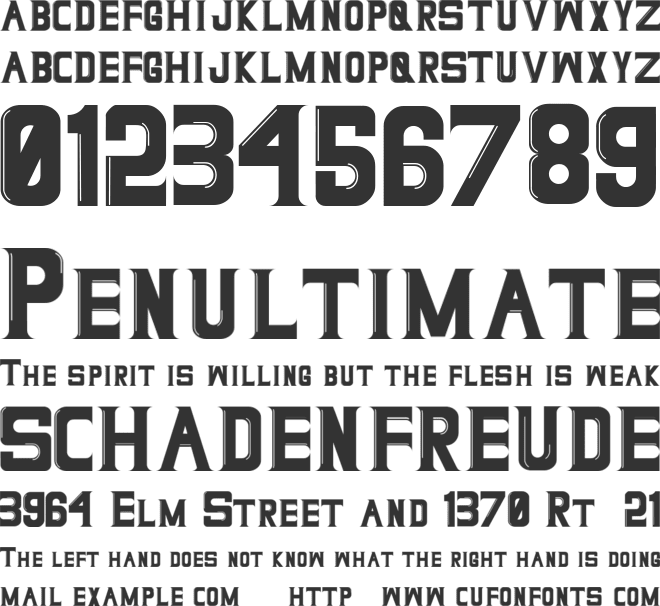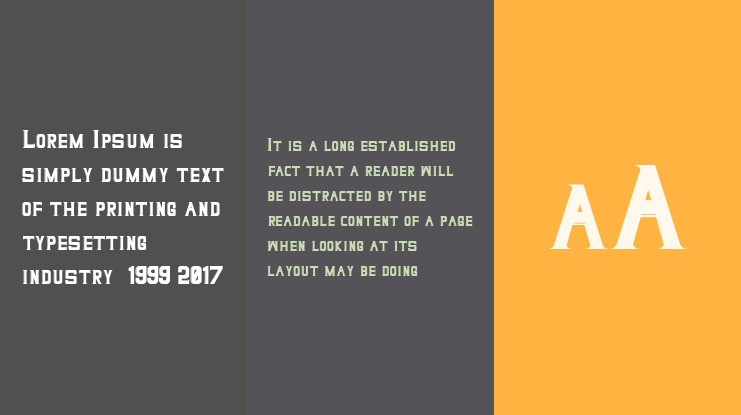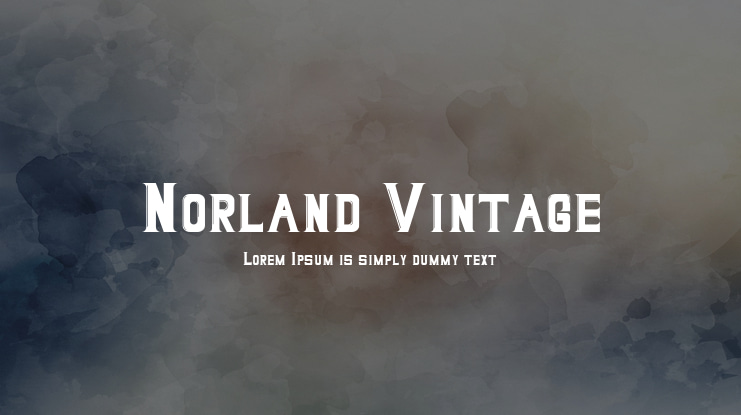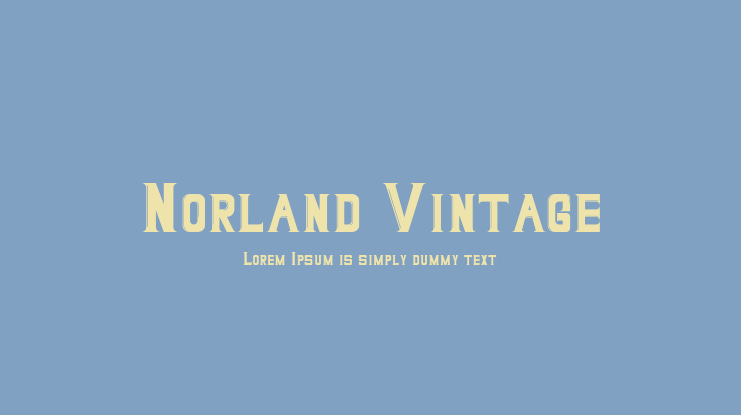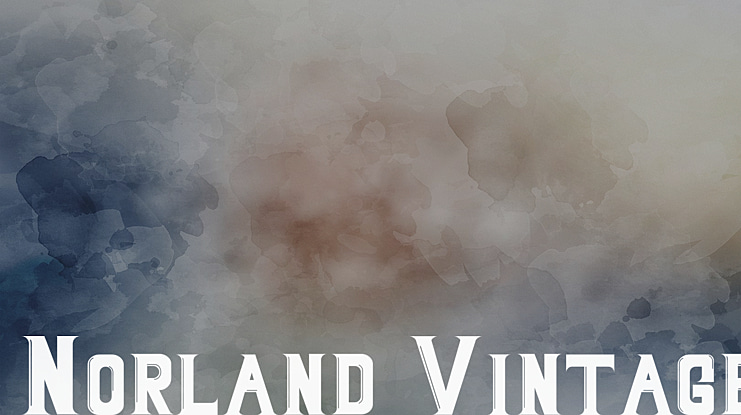
Norland Vintage Font
Norland Vintage is a bold and retro looking serif font. Add this incredibly cool and imposing font to each of your formal or casual designs, and you will be amazed by the result.